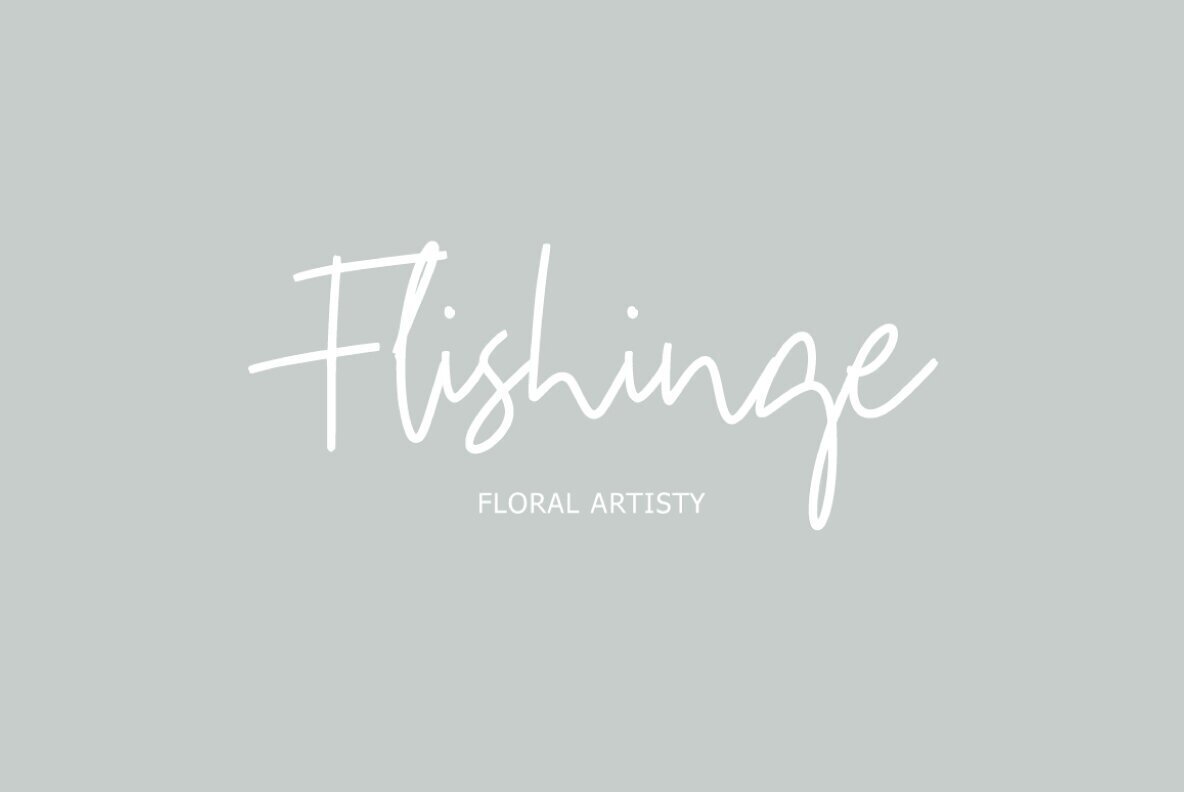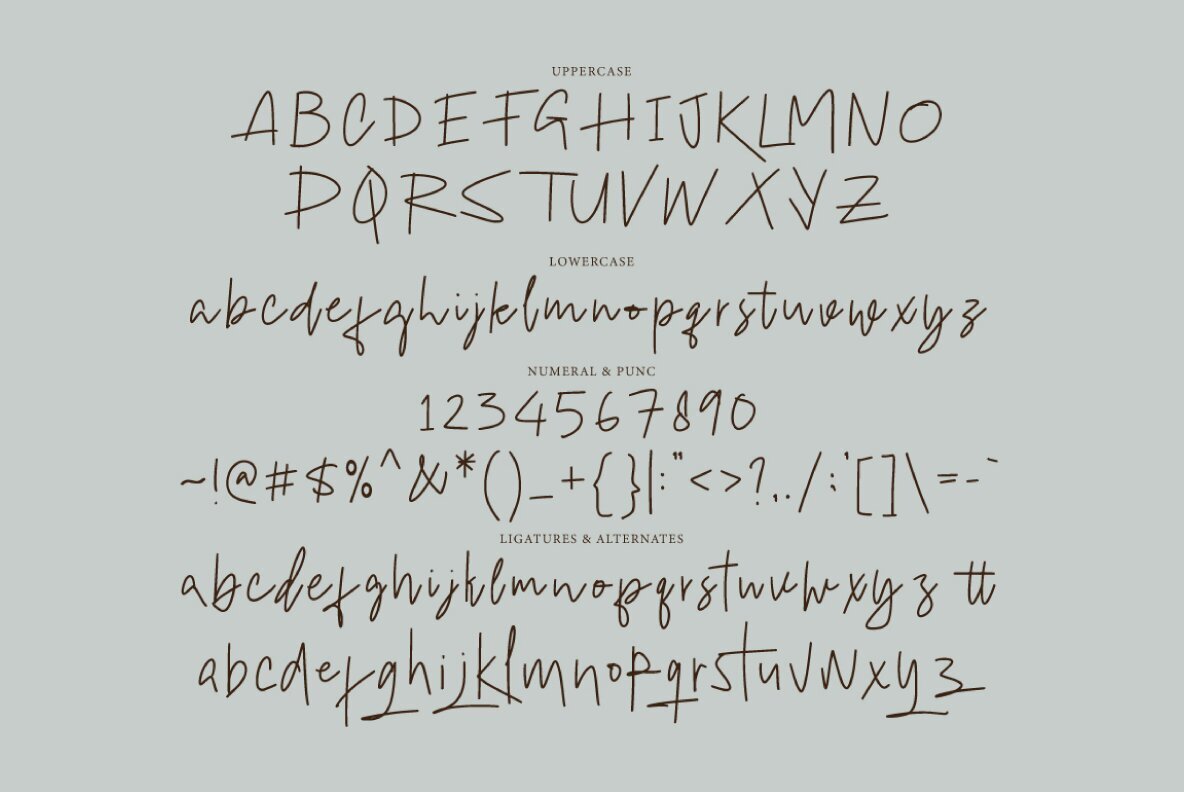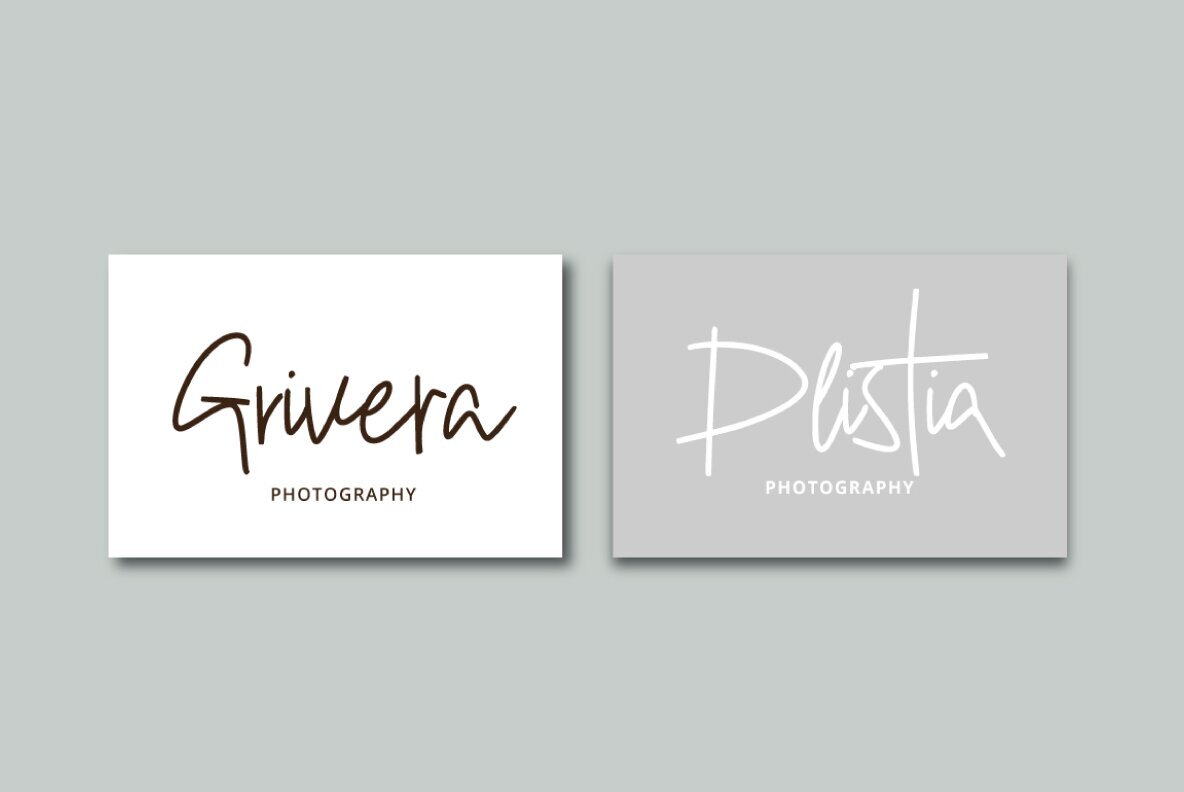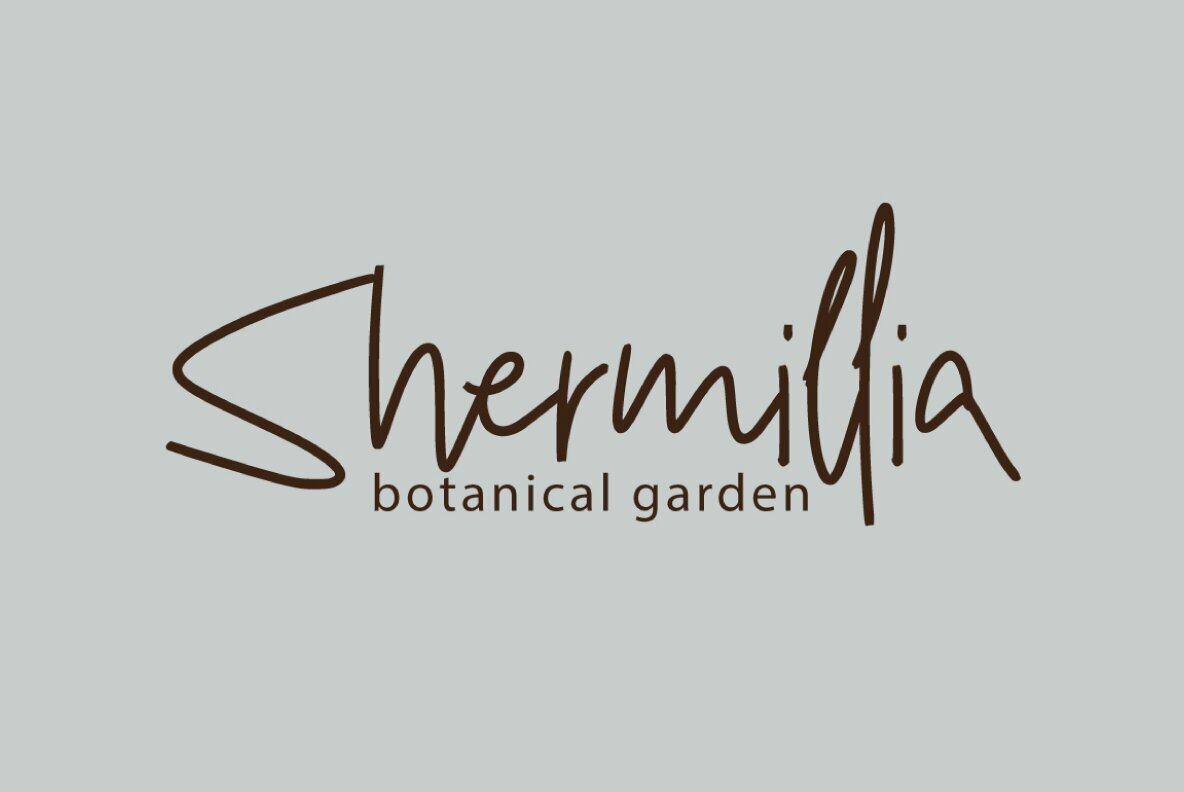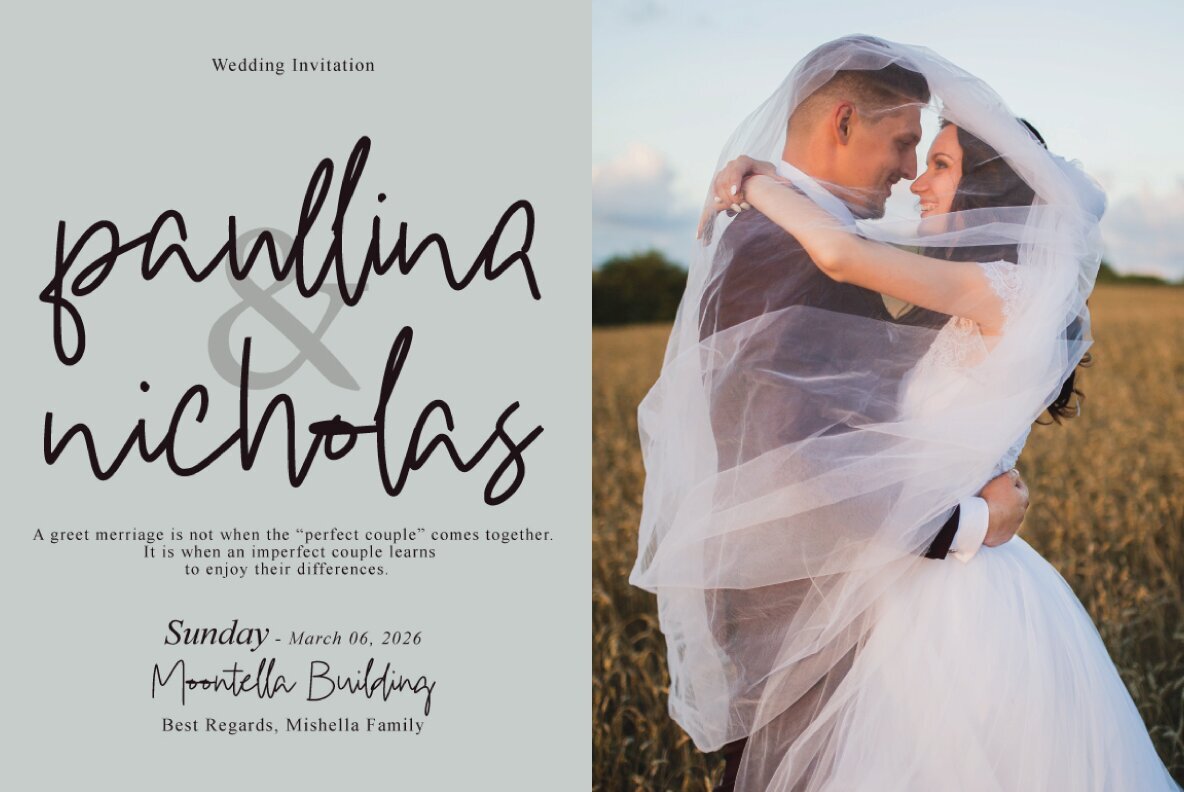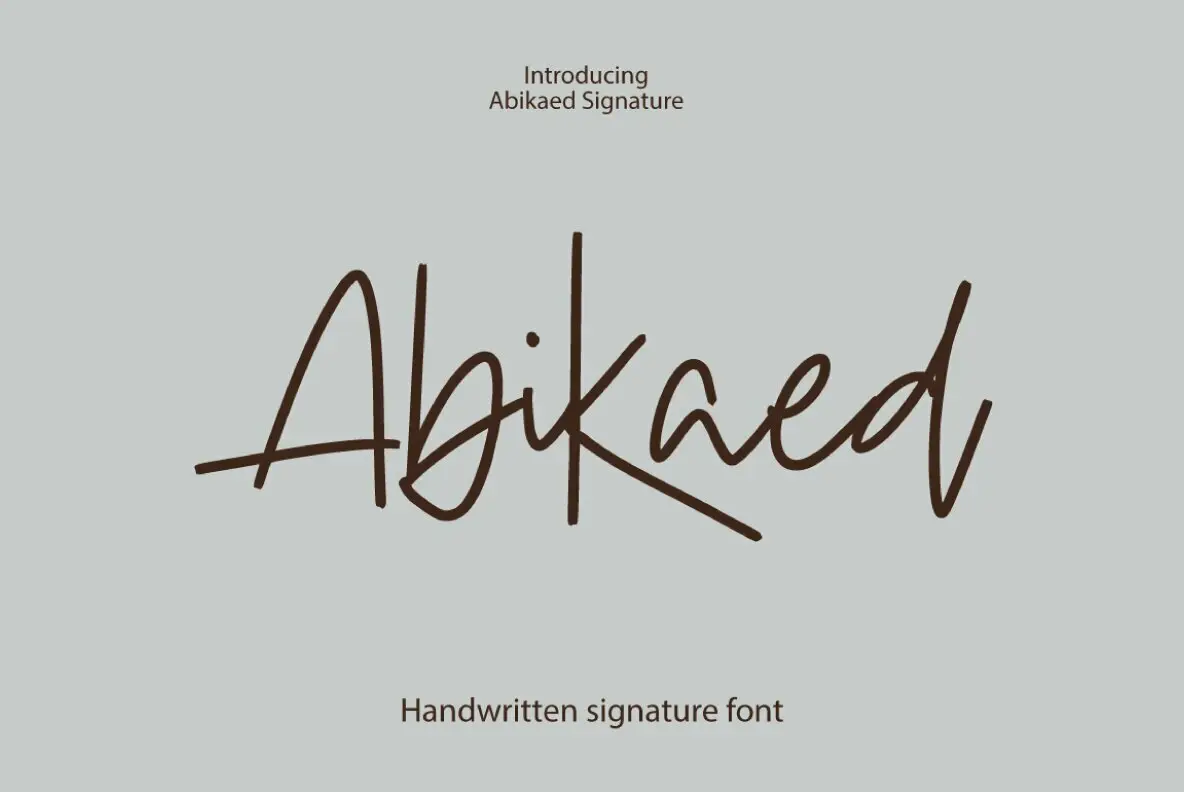
Abikaed Signature Font
Embrace the elegance of handwriting artistry with Abikaed Signature, a font infused with the charm of a handmade signature style. Perfect for adding a touch of sophistication to invitations, greeting cards, business stationery, and branding materials, this typeface boasts a distinctive dancing baseline and decorative characters that will shine in any project. Whether you're crafting quotes, posters, or branding materials, Abikaed Signature offers endless possibilities. Access its full range of alternatives using OpenType savvy programs or utilize Font Book or Character Map on Mac and Windows respectively for seamless integration into your designs.Abikaed Signature Typeface